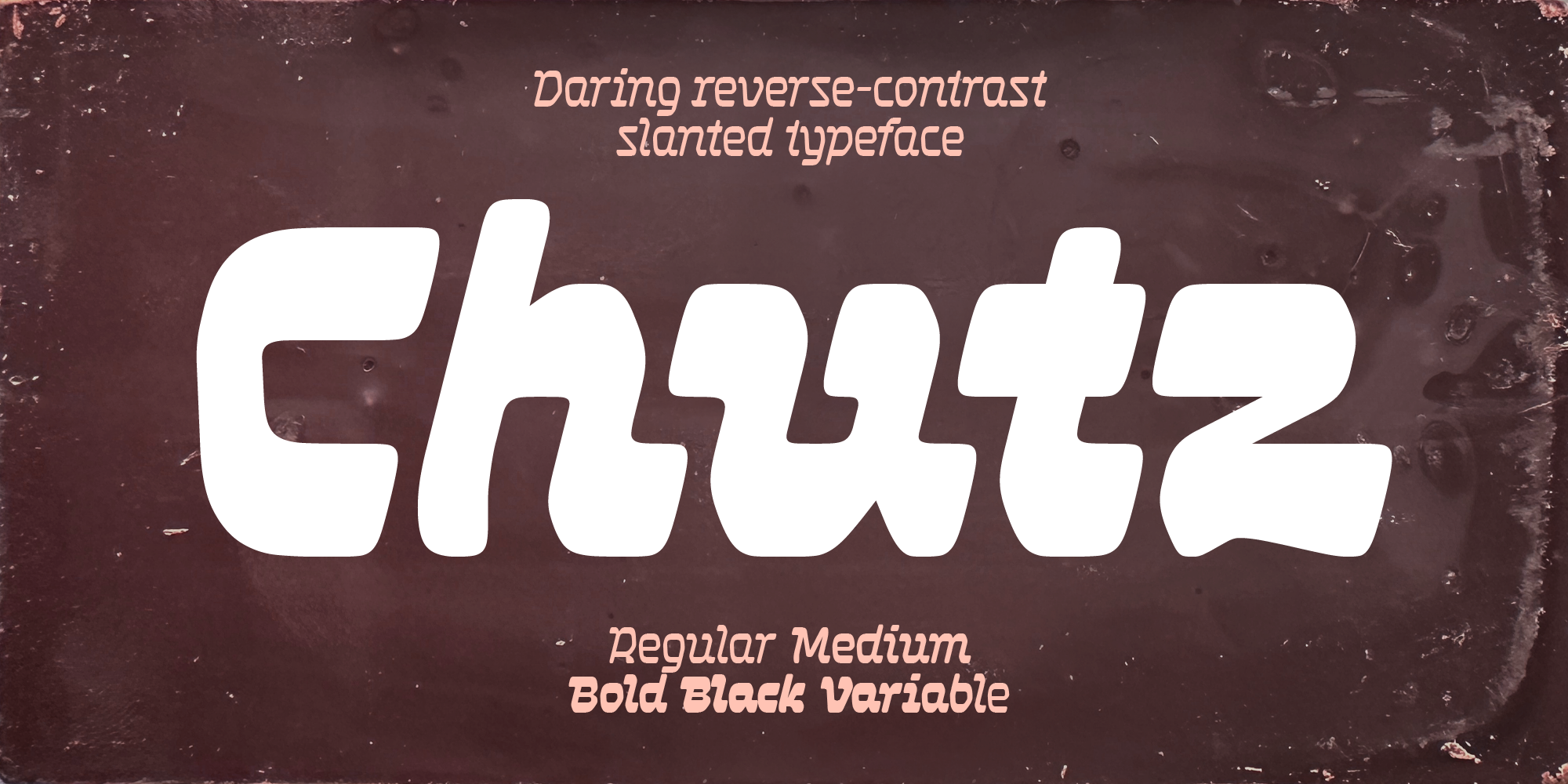
Chutz Font is perfect for bold advertising campaigns, sports team branding, energy drink packaging, extreme sports promotions, gaming logos, street wear fashion brands, music festival posters, action movie titles, youth-oriented marketing materials, and dynamic social media content. This powerful typeface brings attitude and energy to designs that need to make a strong, memorable impact.
What makes Chutz Font exciting is its unapologetic boldness and rebellious character that commands immediate attention. The font features strong, impactful letterforms with distinctive edge and personality that perfectly captures the spirit of confidence and determination. Its dynamic design language communicates power, attitude, and fearless creativity, making it ideal for brands that want to project strength, authenticity, and uncompromising vision in their visual communications.
Chutz Font comes in versatile font families including Regular, Bold, Heavy, Condensed, Extended, and Outline variations. Each family member maintains the signature boldness and attitude while offering different stylistic approaches to accommodate various design requirements, from subtle branding elements to explosive headline statements that demand attention.
For projects requiring maximum impact and fearless expression, Chutz Font Free Download provides the typographic punch needed to break through the noise. The font's distinctive character and bold personality make it an excellent choice for designers working on high-energy projects that need to communicate confidence, rebellion, and unshakeable determination across all marketing and branding applications.